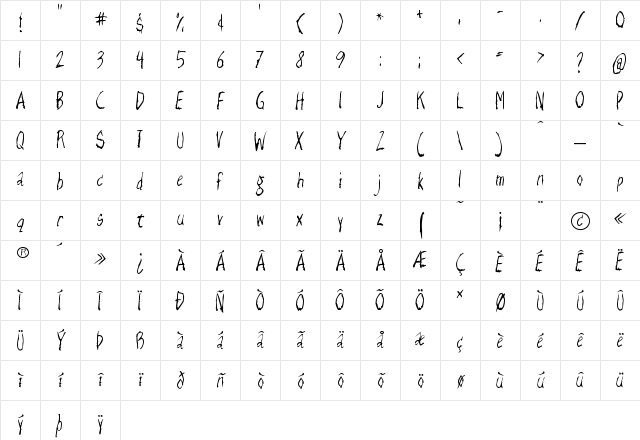
Razor Keen Regular
Razor Keen Family
Design Context for Razor Keen
Razor Keen is a composed and adaptable typeface that performs quietly and consistently across a wide range of design contexts.